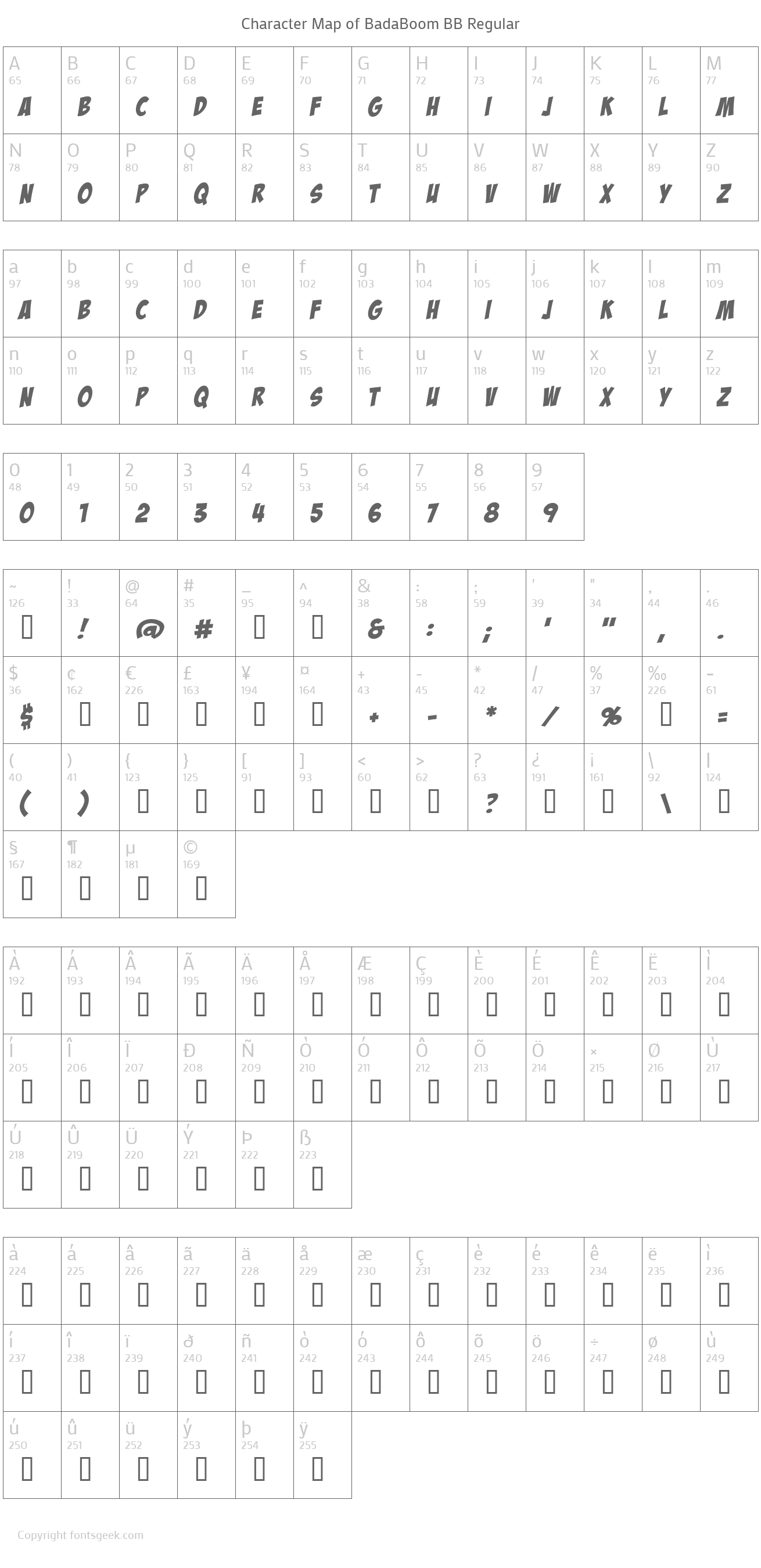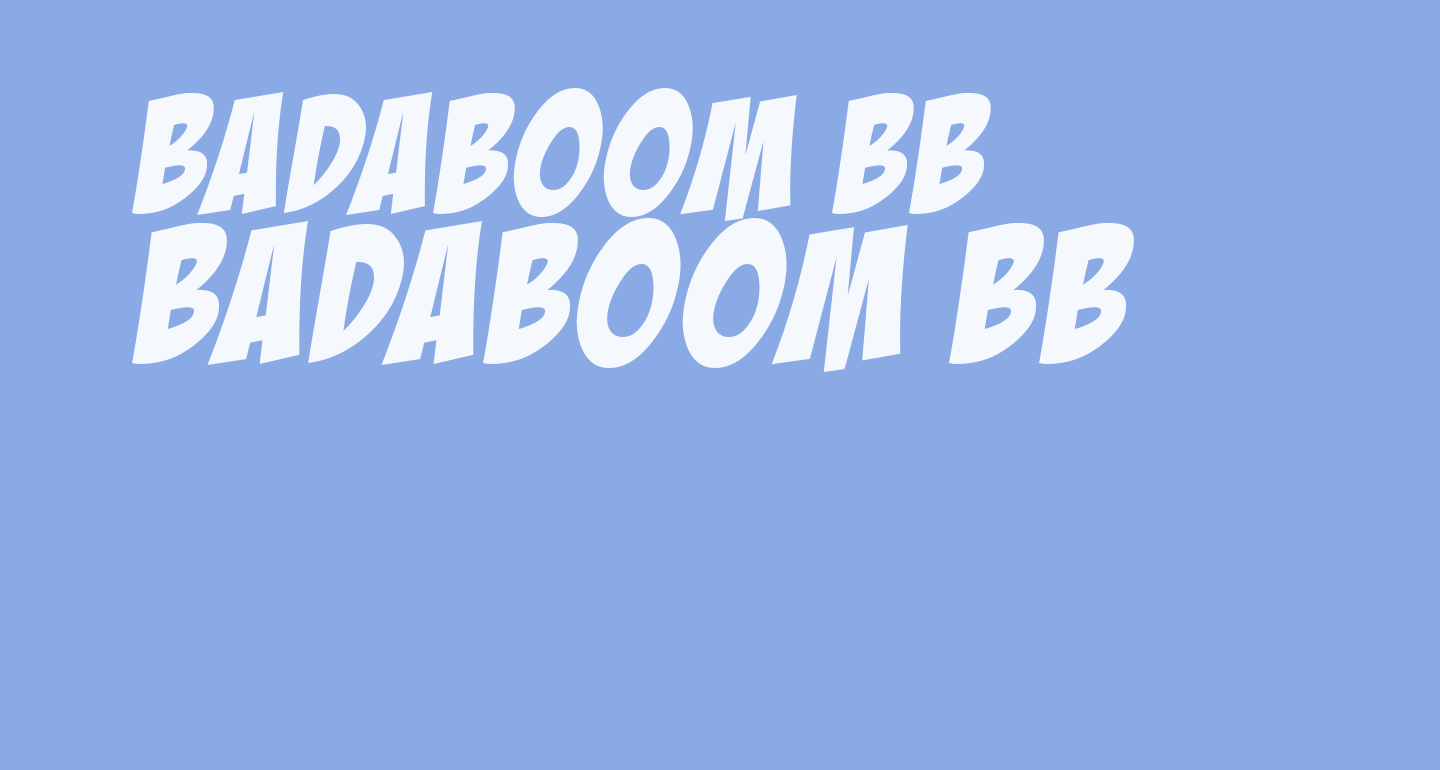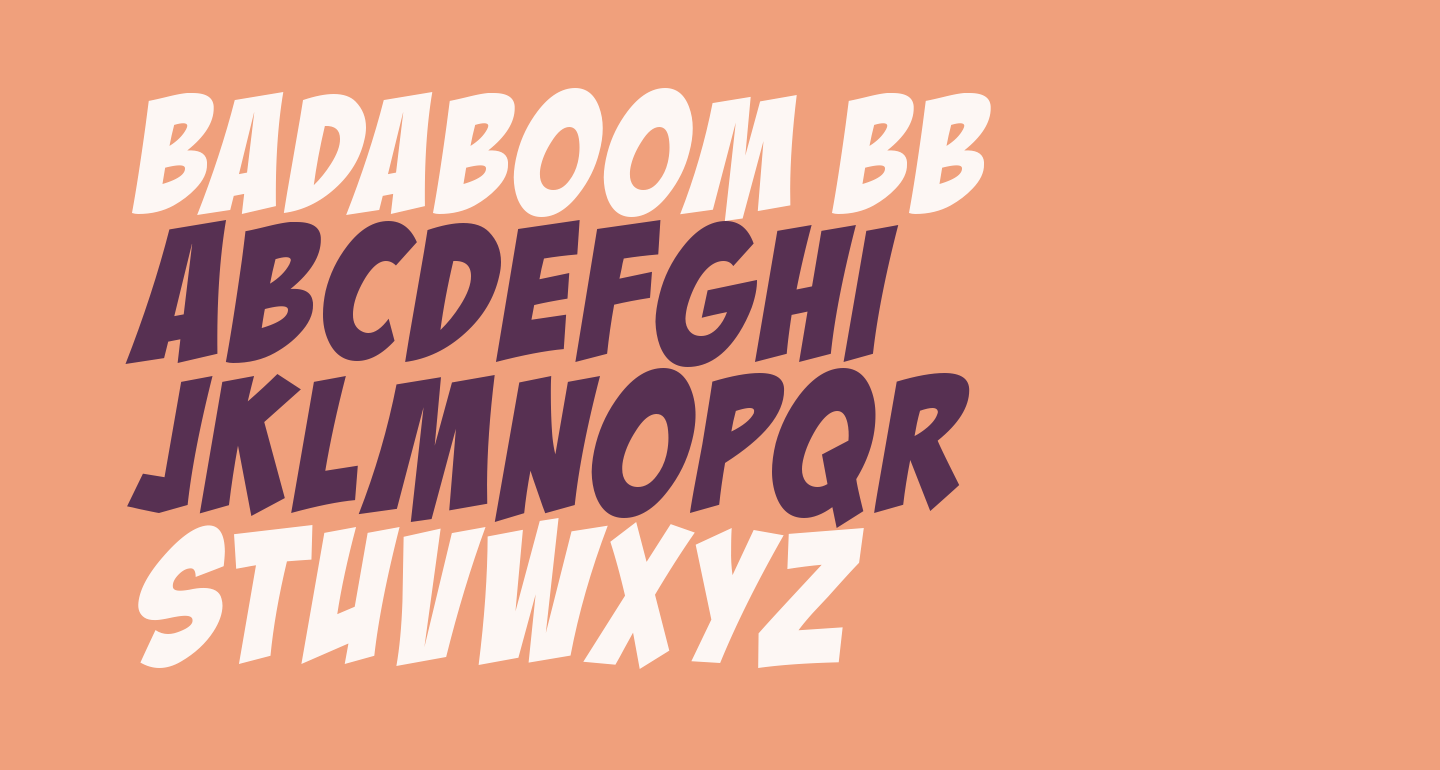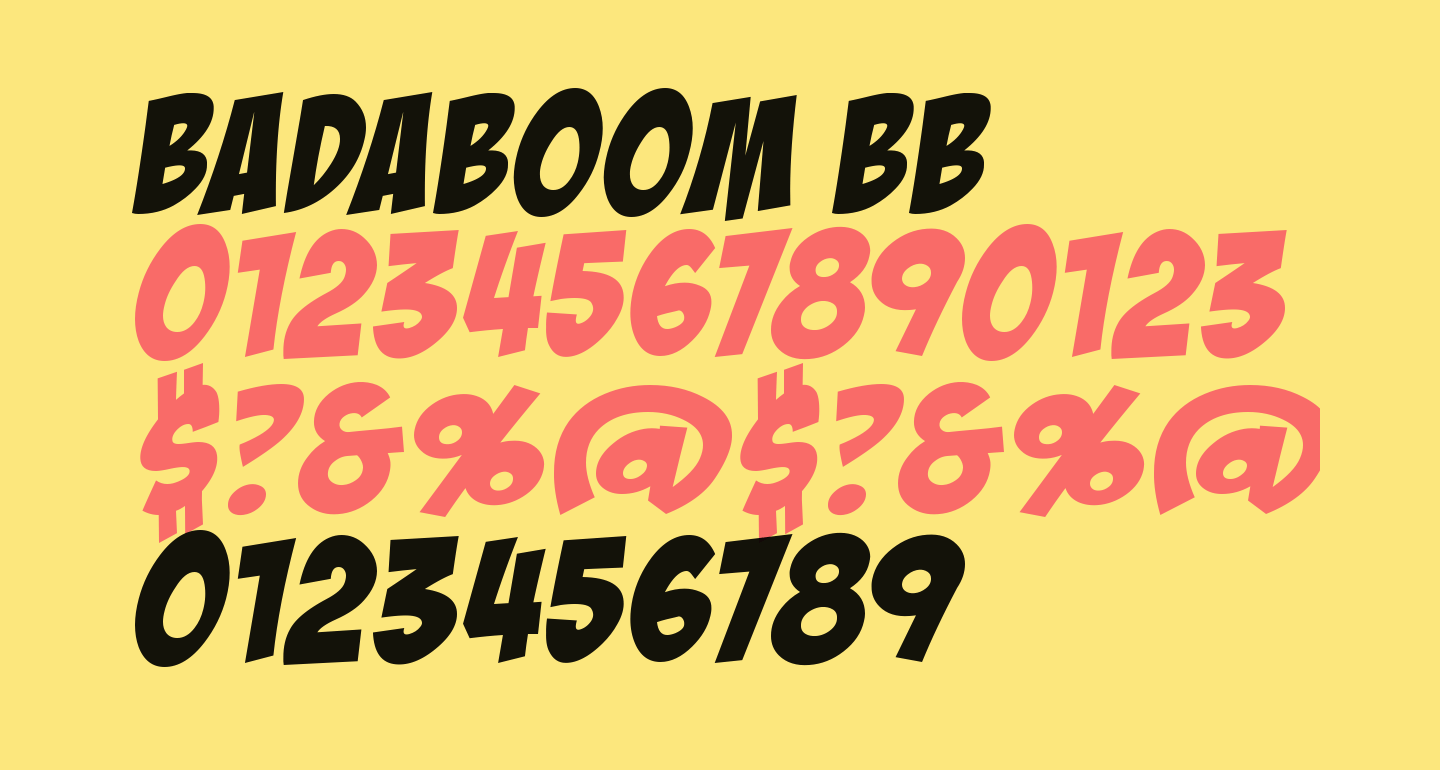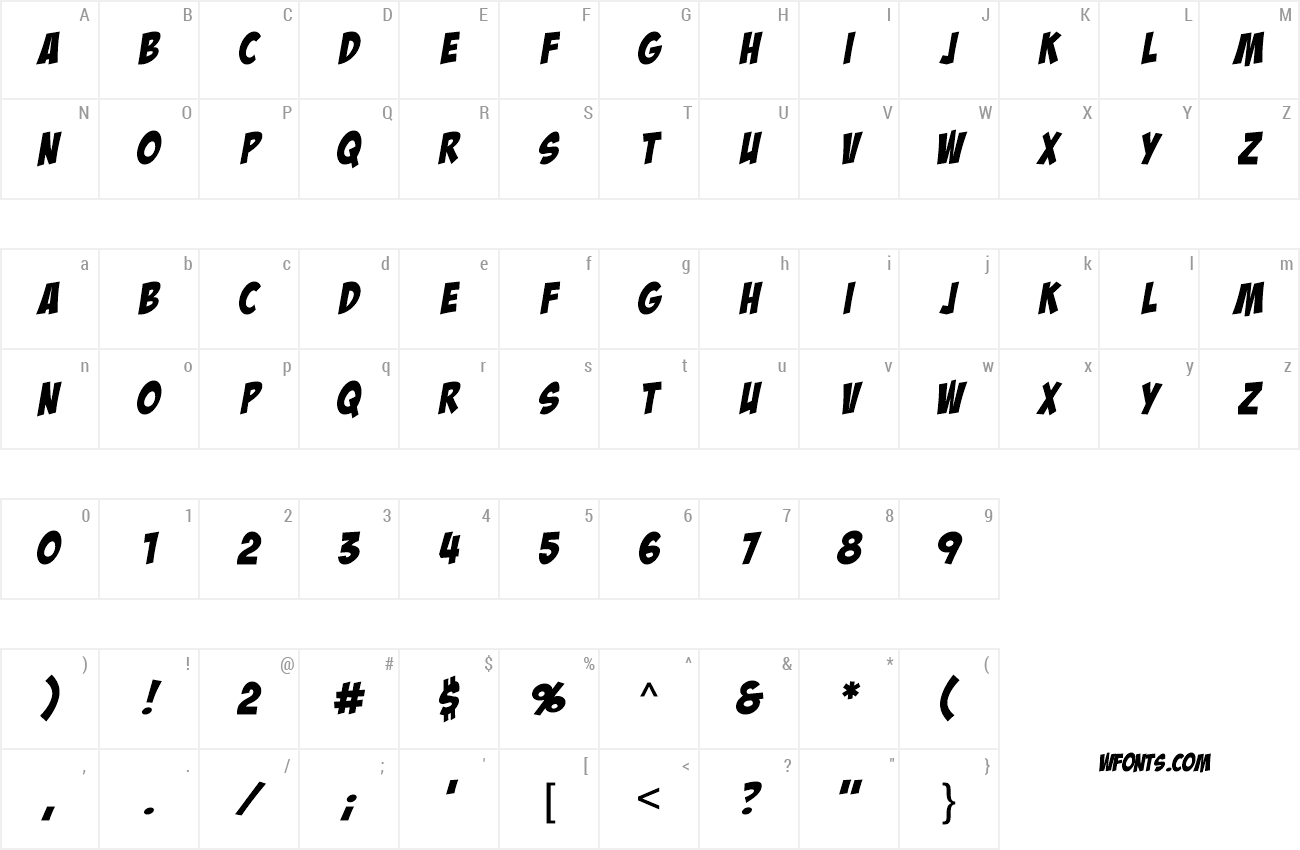
Badaboom Font Similar
Badaboom Font Similar. This typeface has very charming glyphs that are specially made for designing comic books. ( this excludes use by “mainstream” publishers, (marvel, dc, dark horse, oni, image, slg, top cow, crossgen and their subsidiaries) without a license fee.
This font style has a bold and prominent texture appearance that can easily be utilized in display projects. If you recognize the font from the samples posted here don't be shy and help a fellow designer. Download free font badaboom by blambot fonts from category comic cartoon.
It is part of blambot's sound effects collection and designed for for words like blam! Here you will find fonts that look like badaboom pro. 100 free fonts alternatives to.
This Unique Typeface Comes In A Very Legible Format That Can Suit Almost Everywhere.
Although we have the largest database of fonts, the search for a font from an image gets mixed results like the image above. Badaboom font is a fancy typeface designed by nate piekos. Armor piercing 2 comic cartoon.